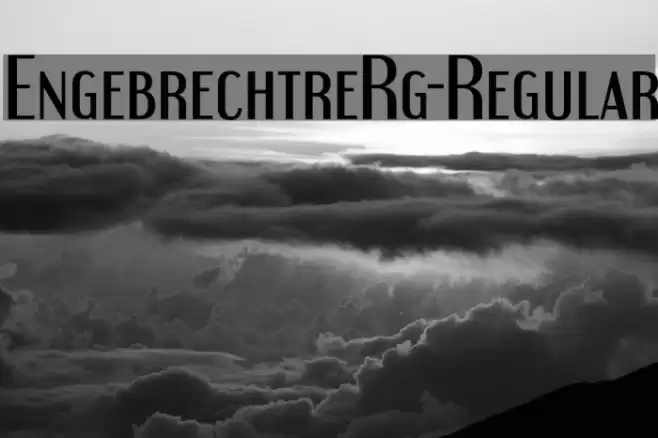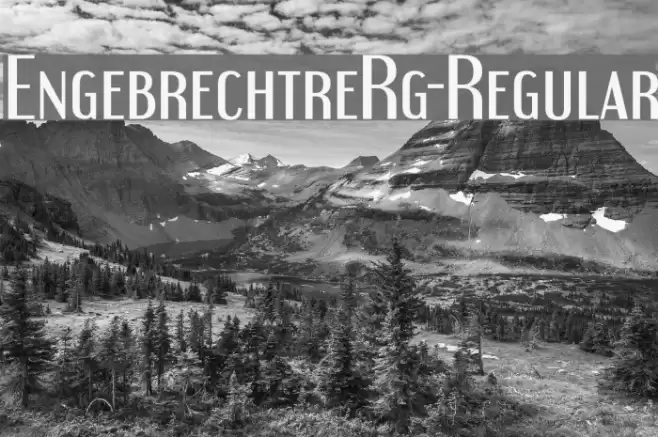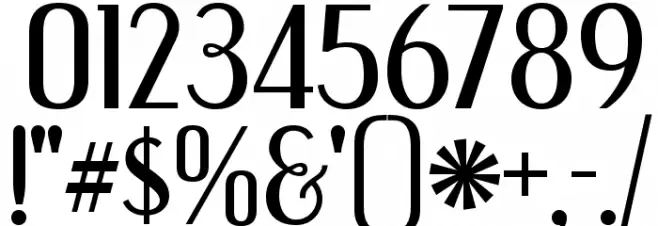
EngebrechtreRg-Regular Font
EngebrechtreRg-Regular Description
This font features a modern and sleek design with tall, narrow characters that convey a sense of elegance and sophistication. The uppercase letters are bold and commanding, while the lowercase letters maintain a consistent style that complements the overall aesthetic. The numerals are distinct and easy to read, making them suitable for various applications. Special characters are well-integrated, maintaining the font's cohesive look. The clean lines and minimalistic approach make it versatile for both digital and print media.
A modern, sleek font with tall, narrow characters and a cohesive design from Uncategorized fonts.
- Proposed Projects: Ideal for branding, editorial design, advertising, and digital interfaces.